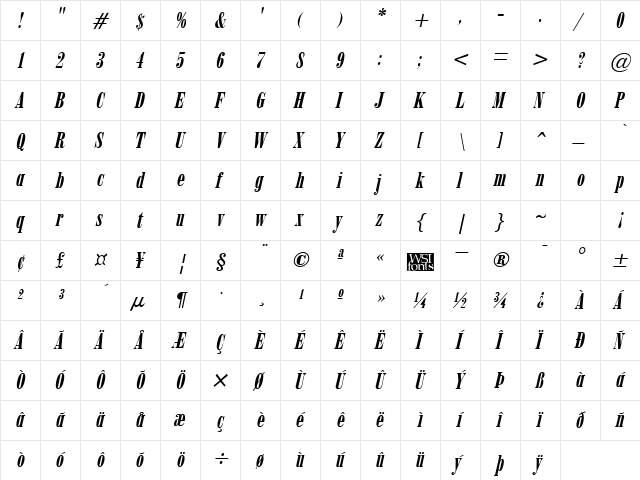
Obelisk Italic
Design Context for Obelisk Typeface
Obelisk offers clean, dependable letterforms without strong stylistic allegiance, making it a practical choice for designers who need flexibility. The dynamic lean of this cut emphasises speed and emphasis in any layout.
Pro Tip: Use Obelisk for emphasis, pull quotes, and subheadings where its slanted energy can add rhythm to the layout.